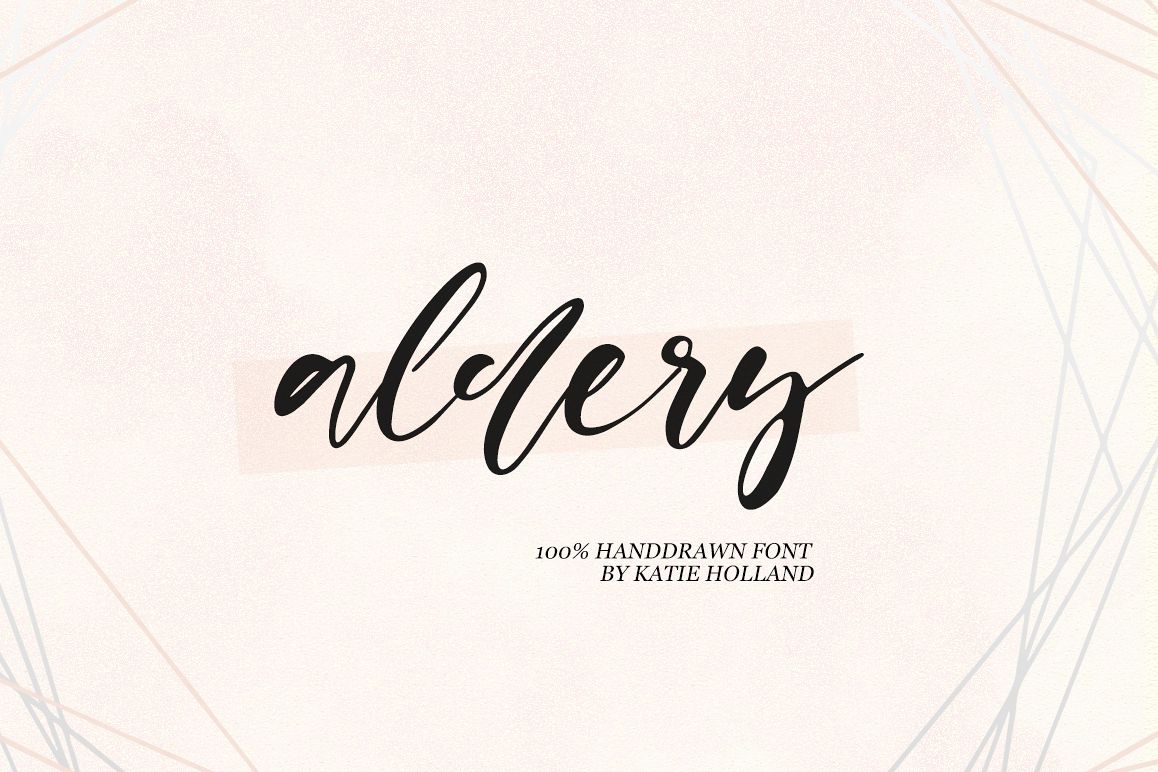
Aldery
Hello, friends. I keep experimenting with handwritten fonts, shapes and lines. I want the font to set the tone, the atmosphere, look defiant, and read well.Try my new font, I think it combines all these qualities. Simple and clear, looks at ease. It is perfect for decoration or design where you don't need strict style :)